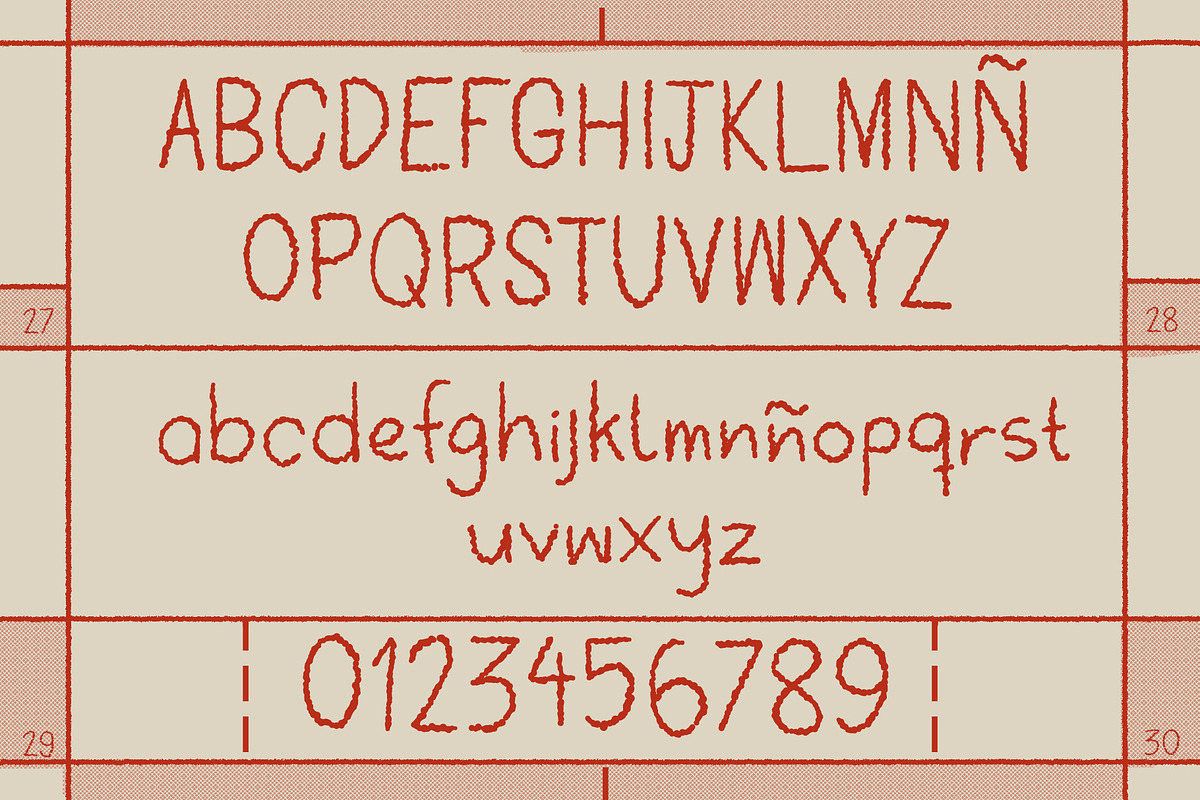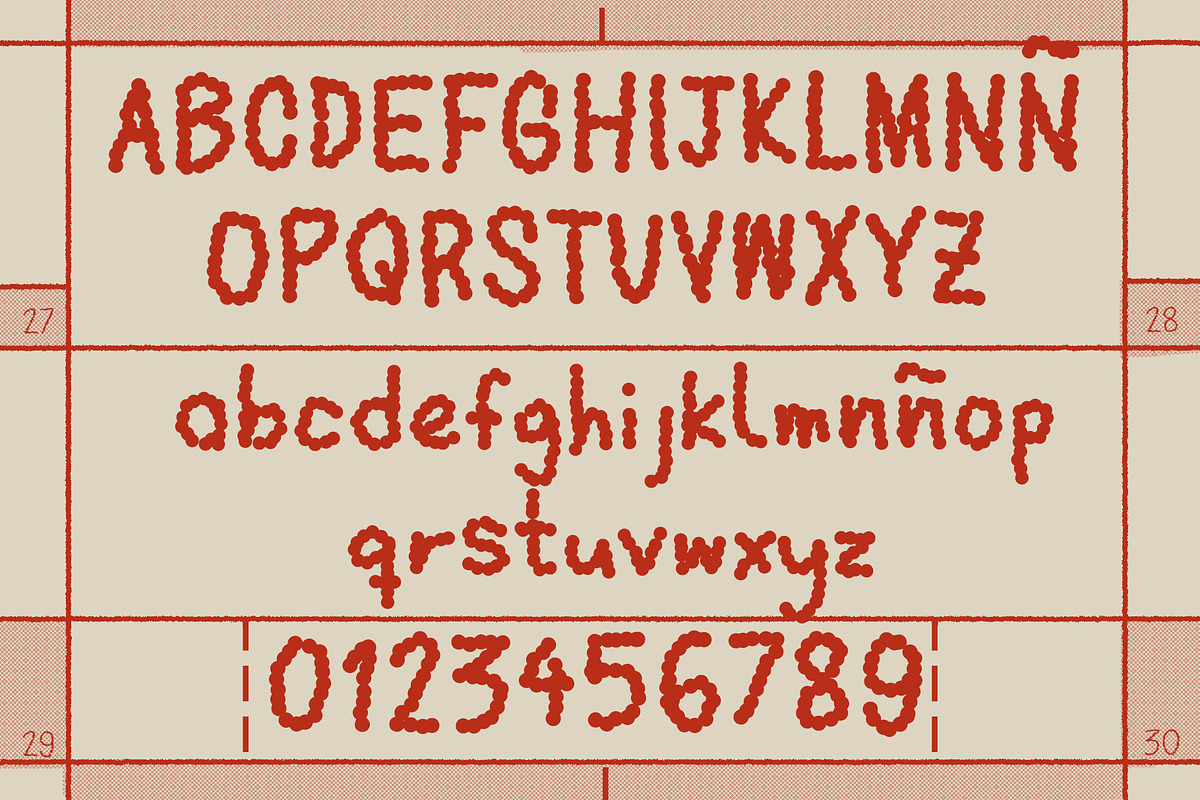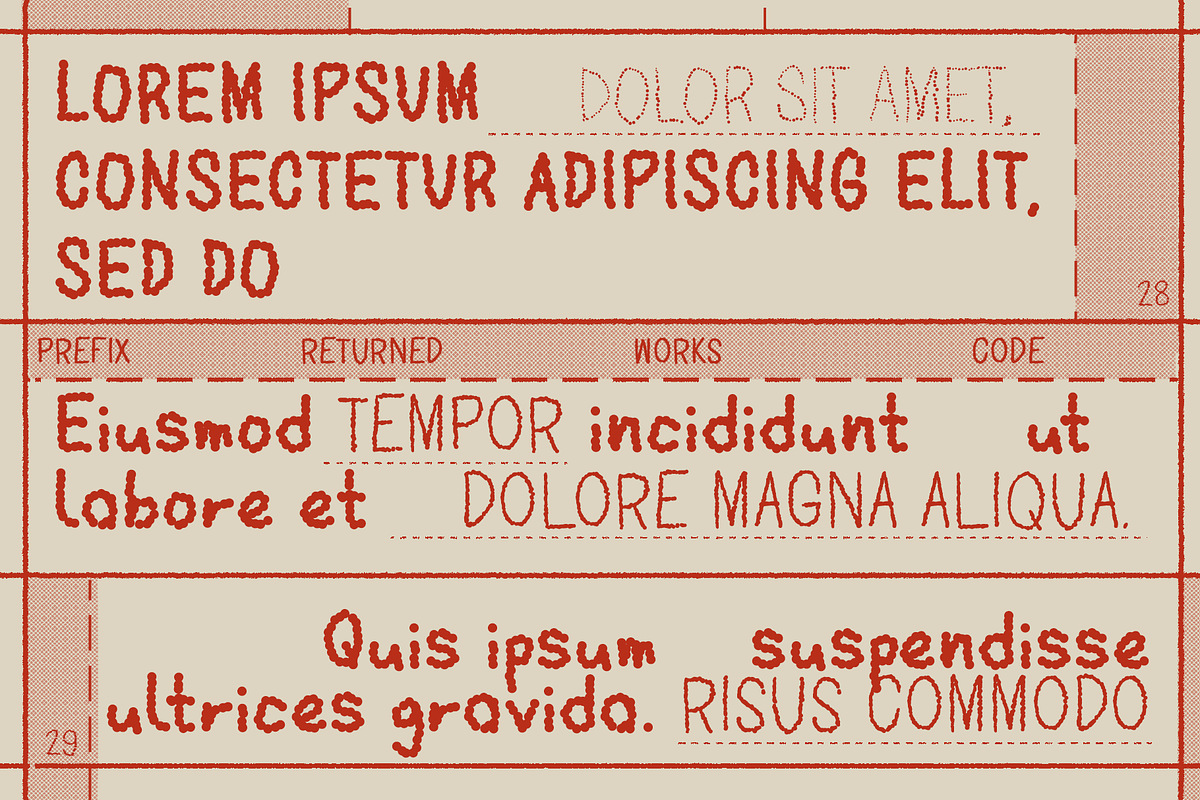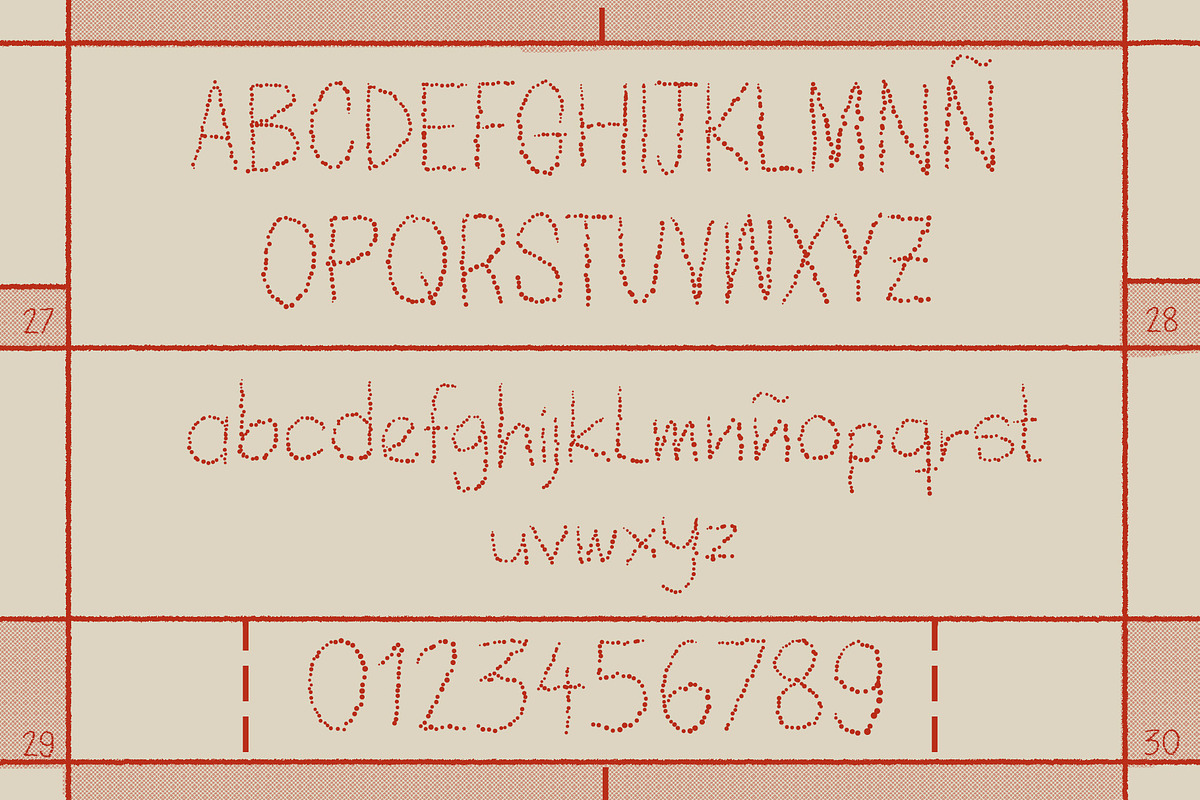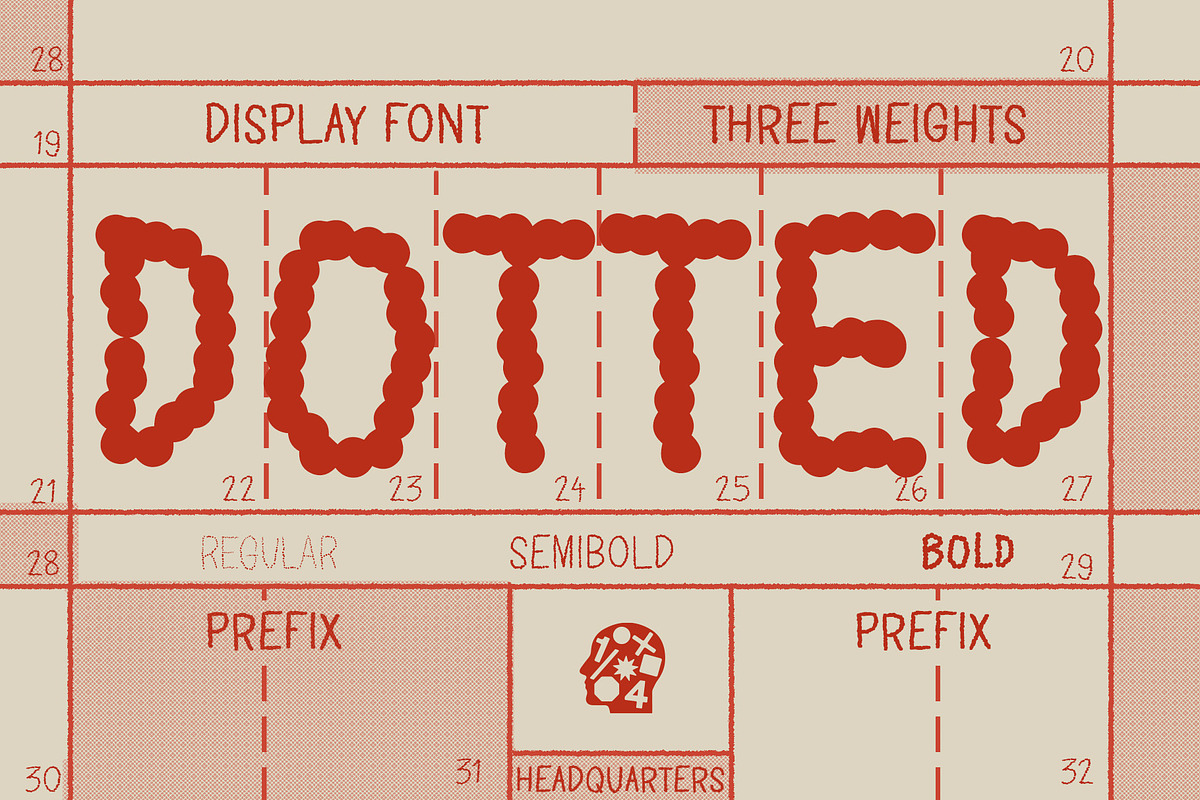
Dotted
Dotted is a charmingly handmade display font that brings dots to any project. Available in three versatile weights - Regular, Semi Bold, and Bold - this font caters to a wide range of creative needs.
The distinct dotted texture of Dotted gives it a unique and whimsical character, perfect for eye-catching headlines, fun branding projects, or engaging marketing materials. Each weight is meticulously crafted, ensuring that Dotted maintains its delightful charm and readability across all sizes and applications.
Whether used in digital media, print, or packaging, Dotted infuses a sense of joy and creativity into your designs, making it an ideal choice for projects that aim to stand out with personality and flair.